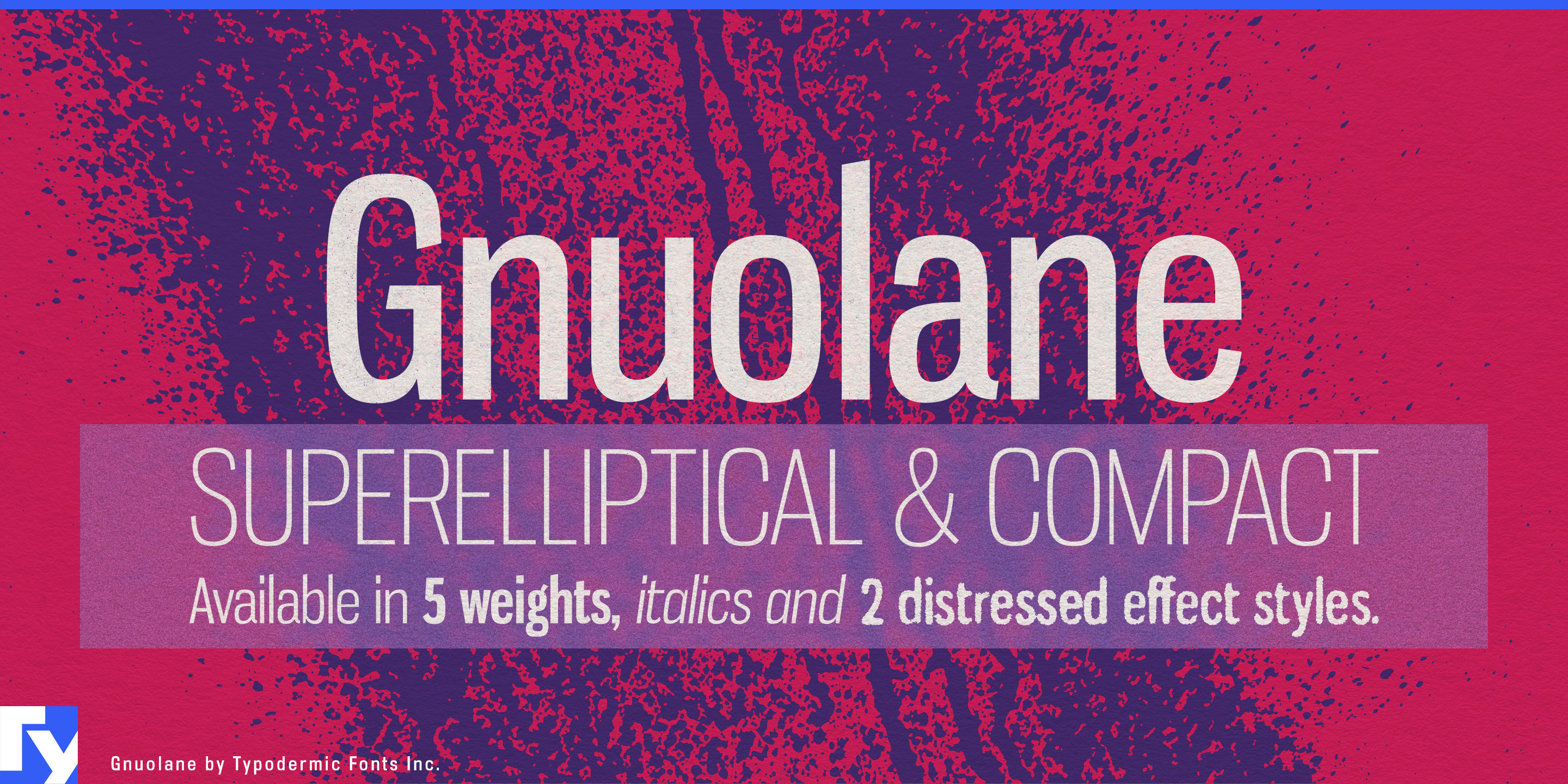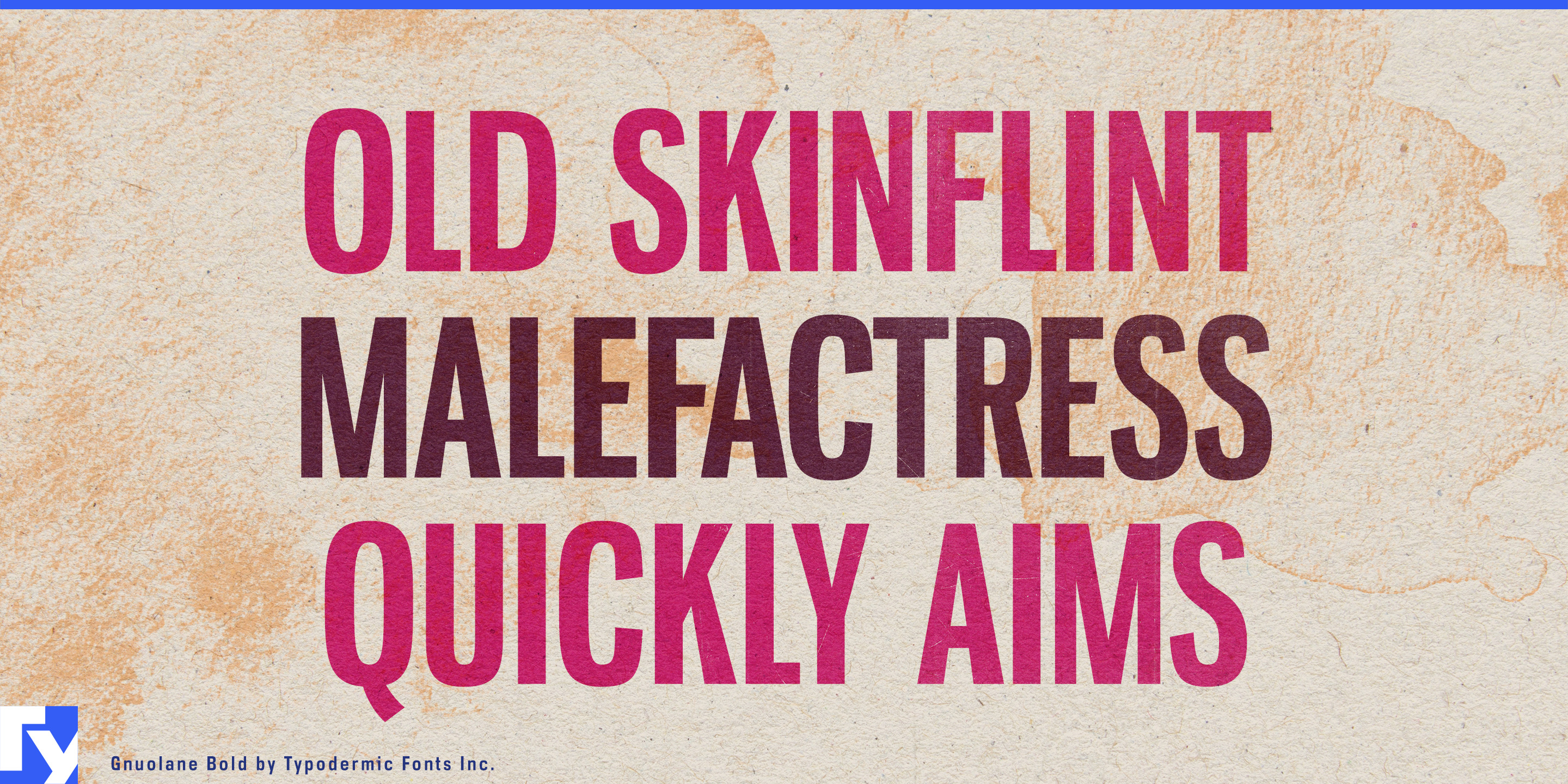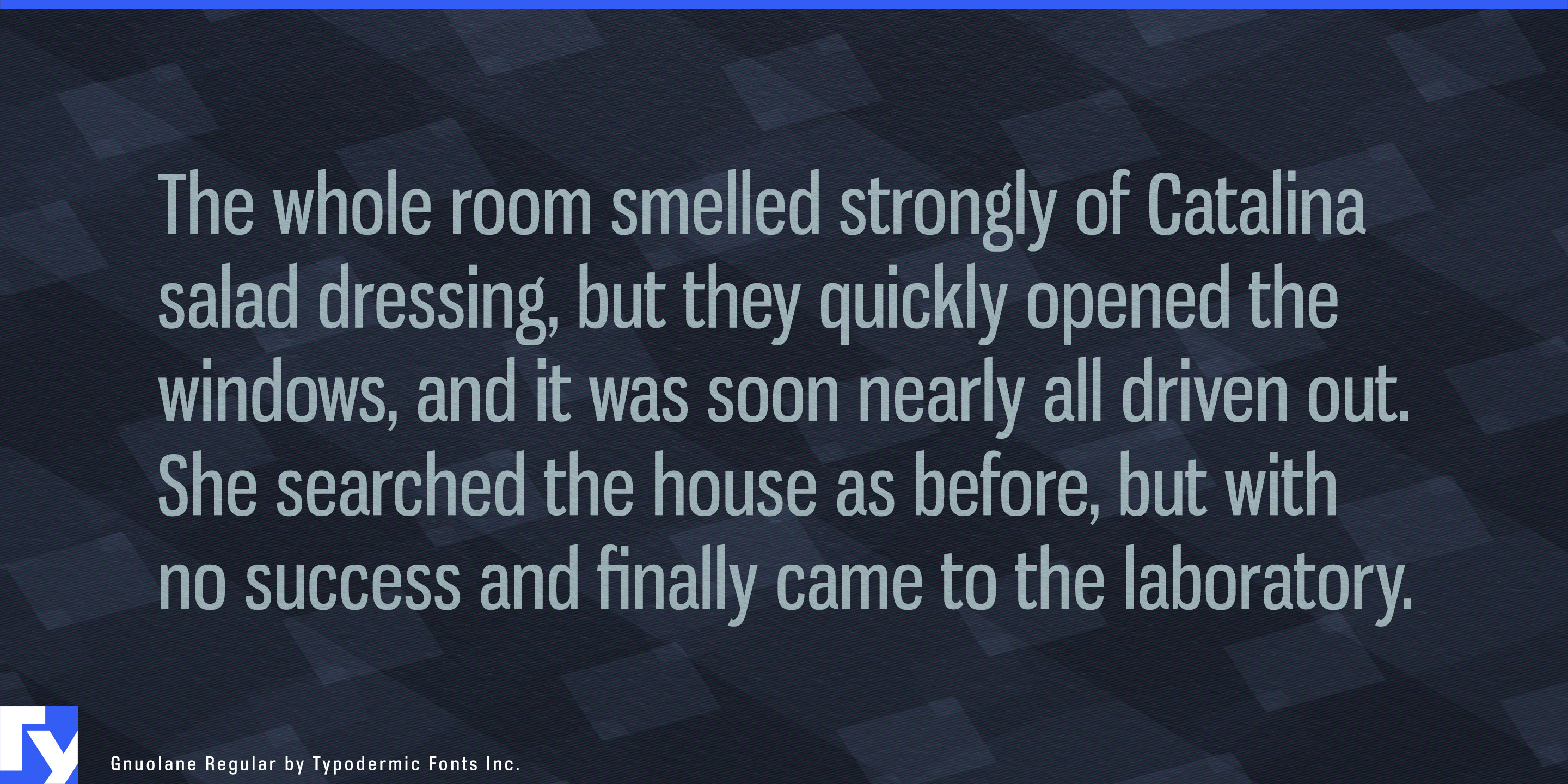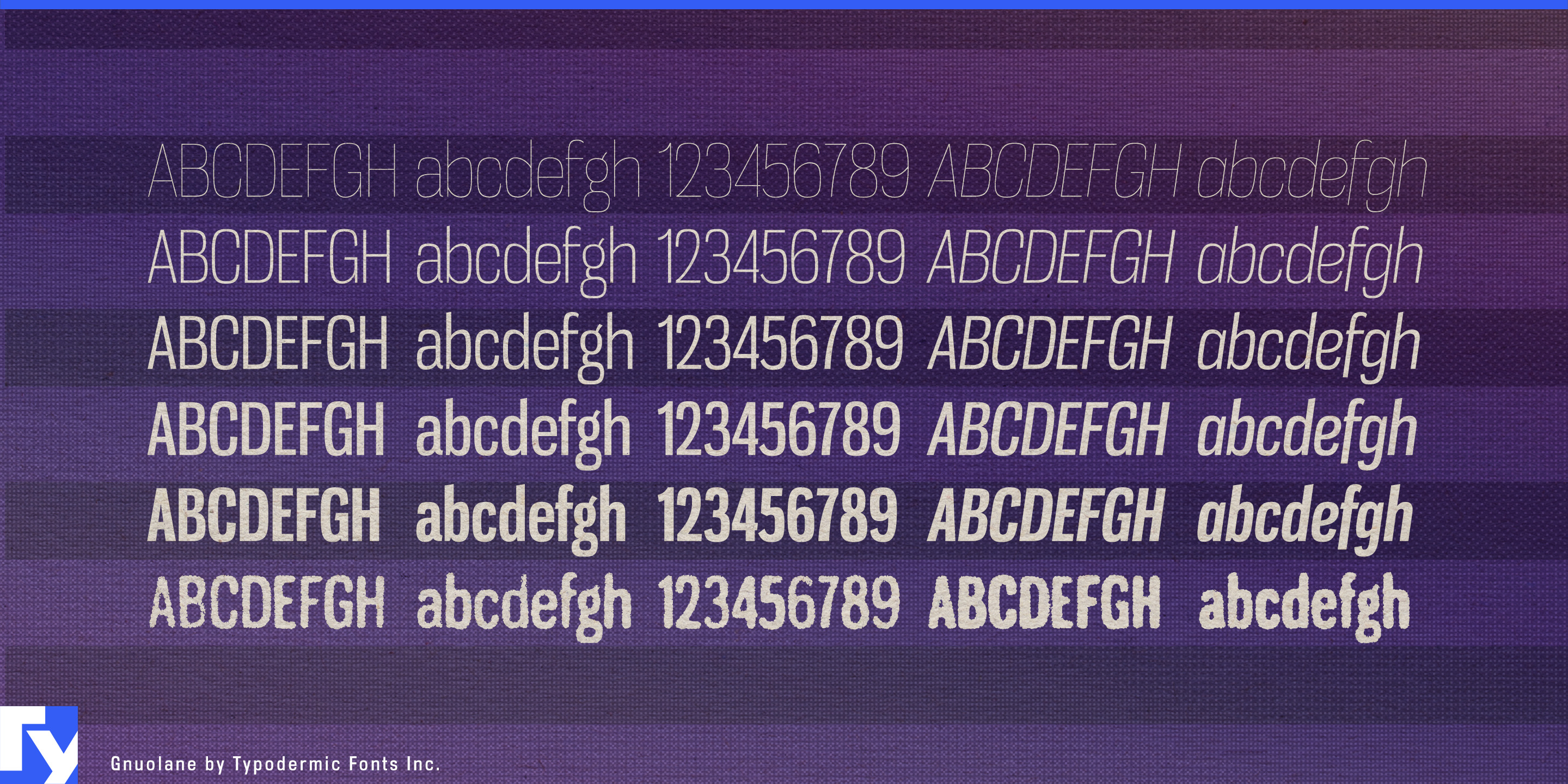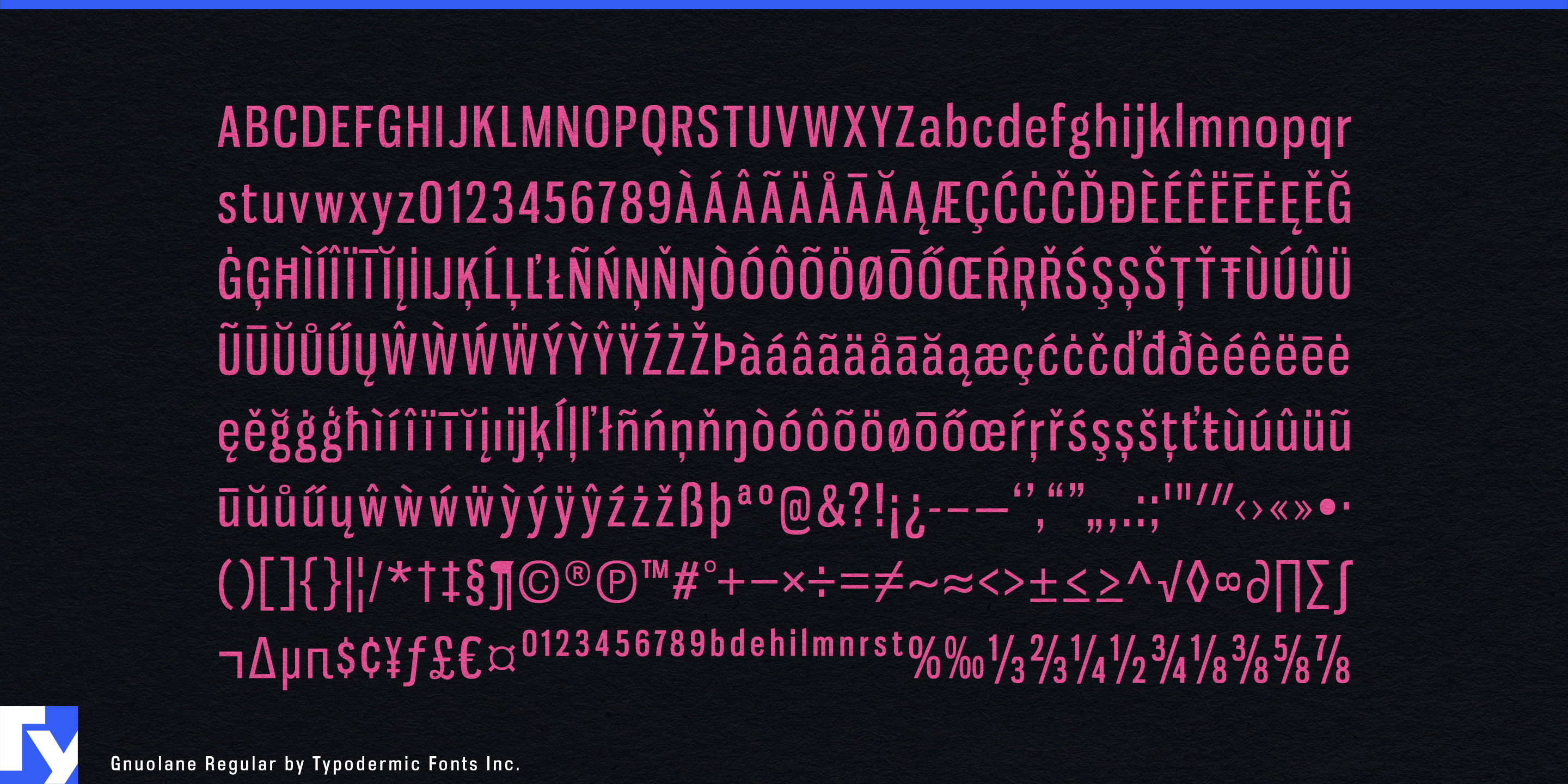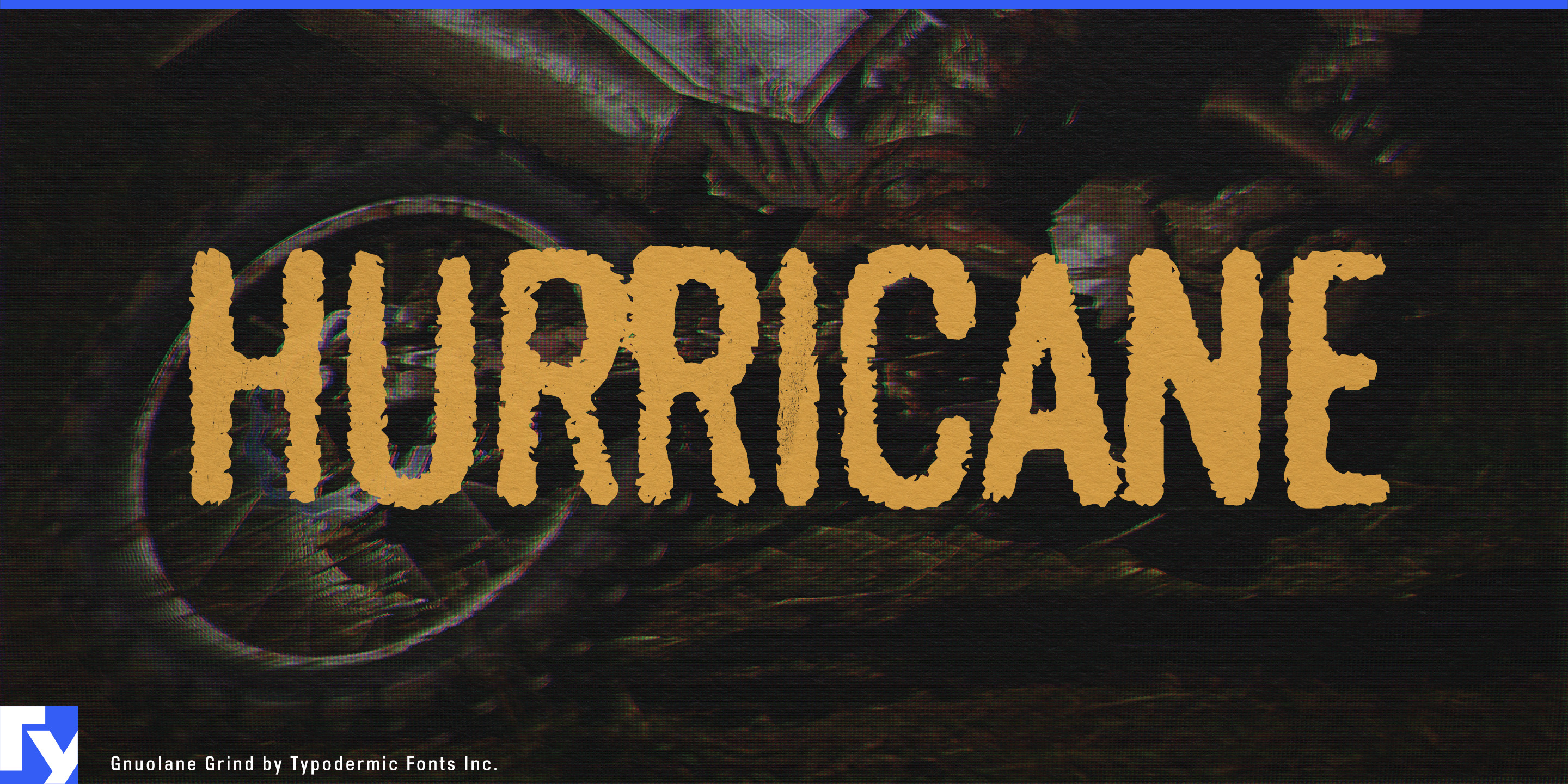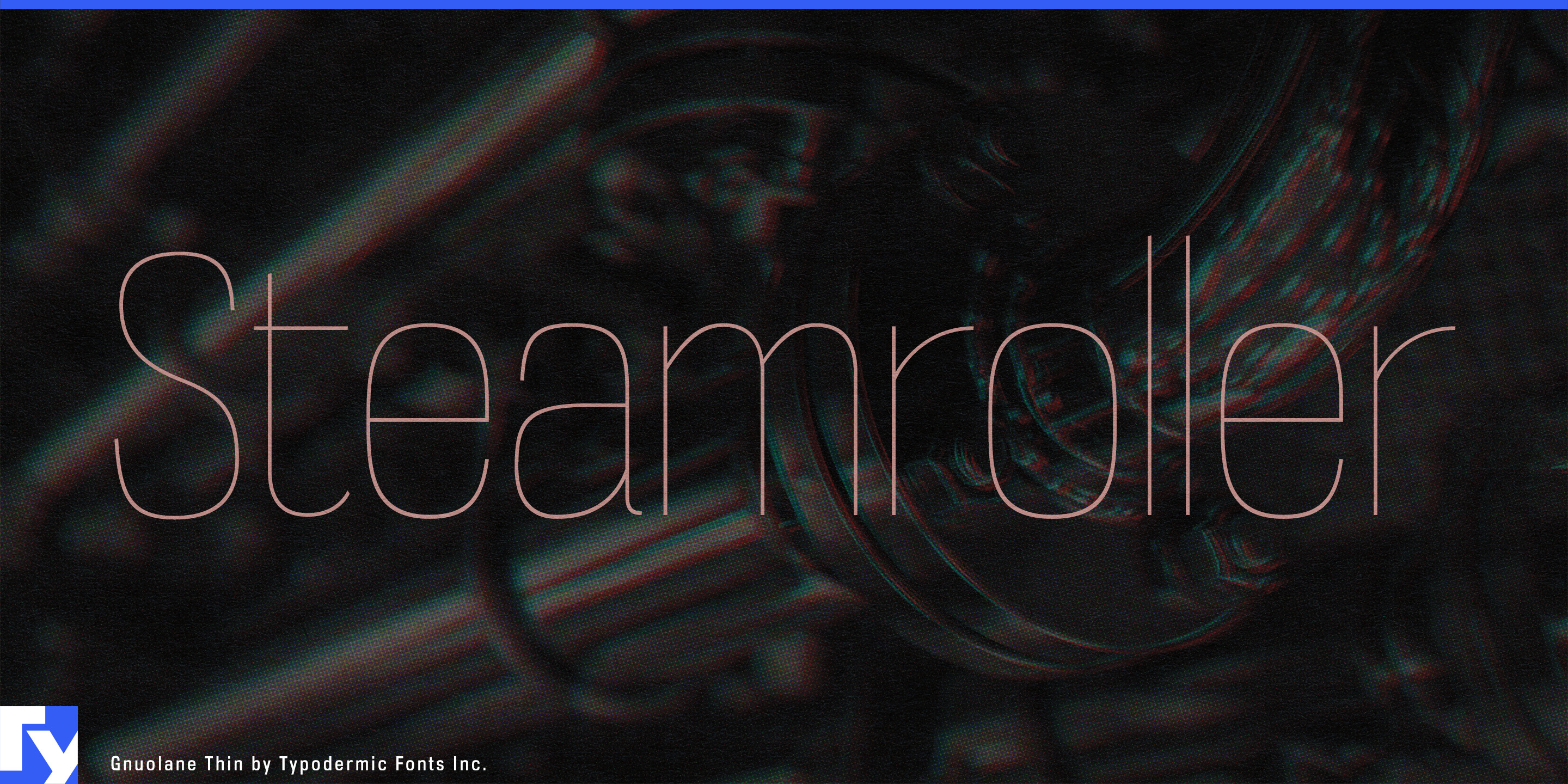
Gnuolane
Gnuolane is a compact, superelliptical sans-serif typeface with an easy warmth that sets it apart from both stark minimalism and nostalgic revival. Its soft curves, angled ascenders, and tight, efficient proportions give it a friendly presence without sacrificing authority. It’s not pretending to be from another century—it’s built for now, with just enough character to feel human.
Available in five weights with italics, plus two distressed “Grind” styles, Gnuolane adapts to a wide range of projects. The lighter weights have an airy, open feel for editorial layouts and clean branding; the bolds deliver punch for packaging, posters, and signage. The distressed styles add texture when you need grit without losing legibility. Gnuolane thrives in identity systems, storefront lettering, magazine spreads, and event graphics—anywhere you want modern clarity tempered by a hint of personality. Its multilingual support keeps your voice consistent across borders, while its compact build lets you fit more message into less space without feeling cramped.
In a marketplace full of cold, interchangeable sans-serifs, Gnuolane offers something rarer: clarity with a touch of warmth.